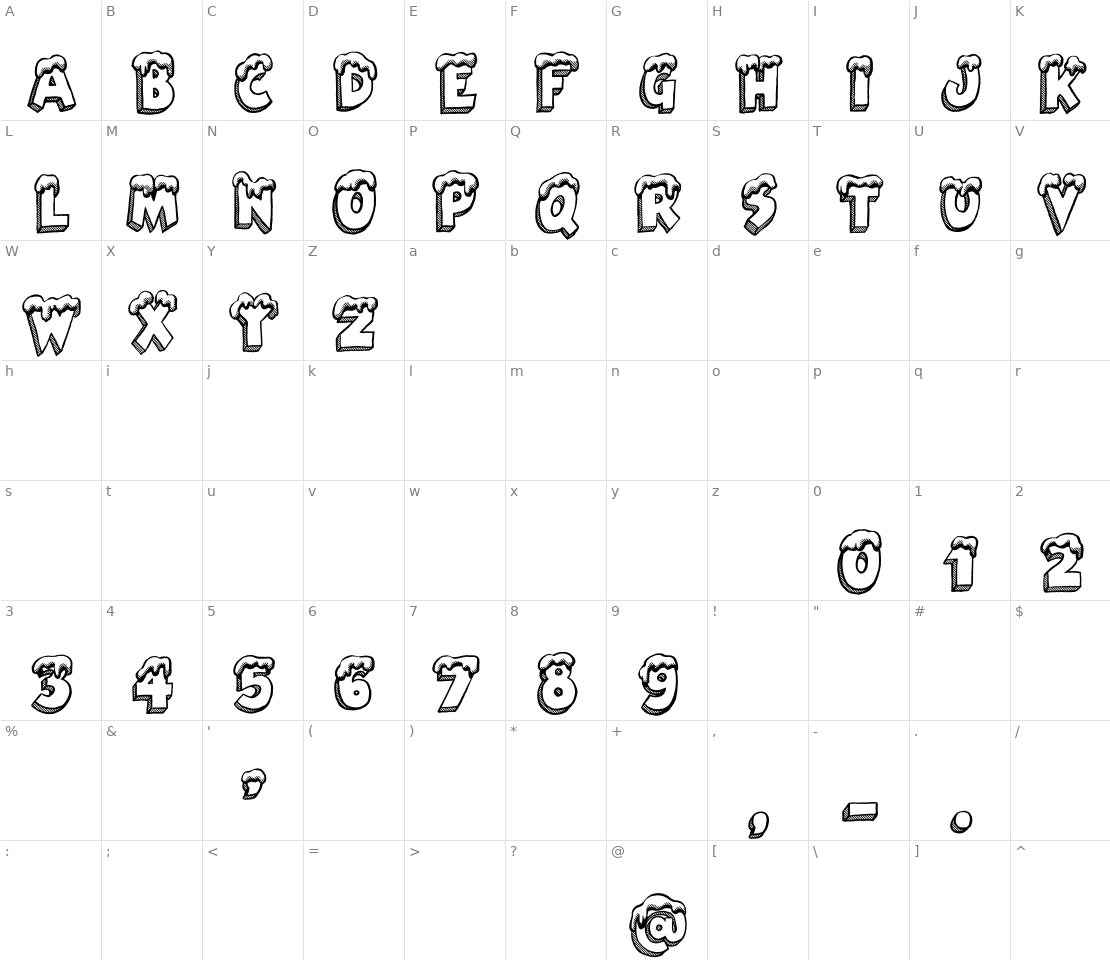
Santa's Air Mail
Santa's Air Mail is a festive novelty face from imagex with dimensional letterforms that look dusted in snow, leaning fully into Christmas card territory. The decorative details give each character a wintry, almost toy-like quality that works for holiday headlines, seasonal packaging, and party invitations. Best kept to short bursts of text where the novelty can land without wearing thin.